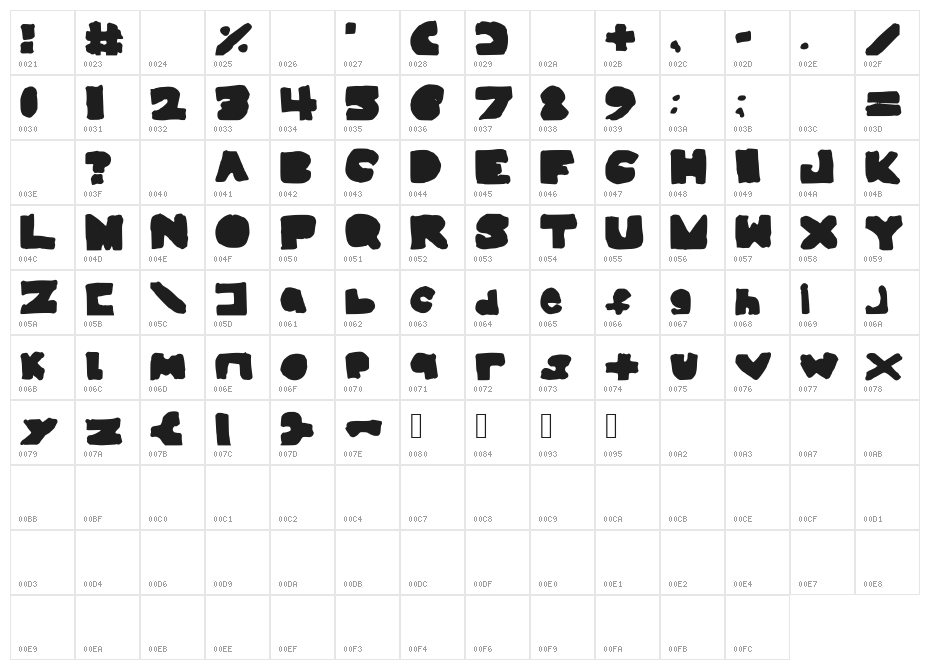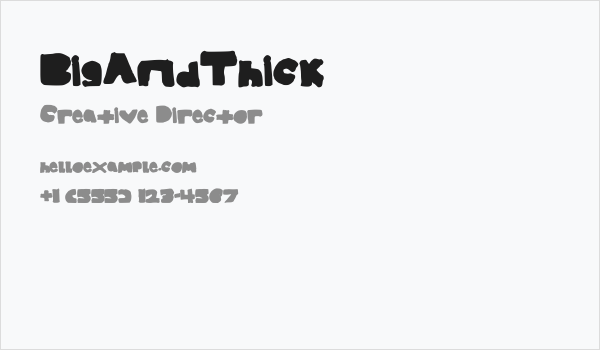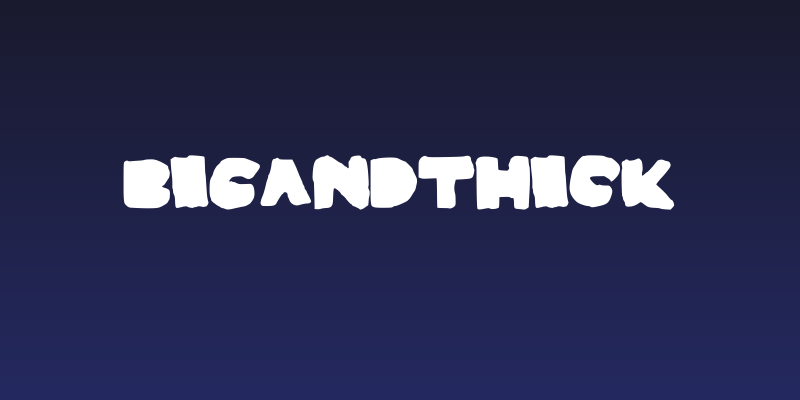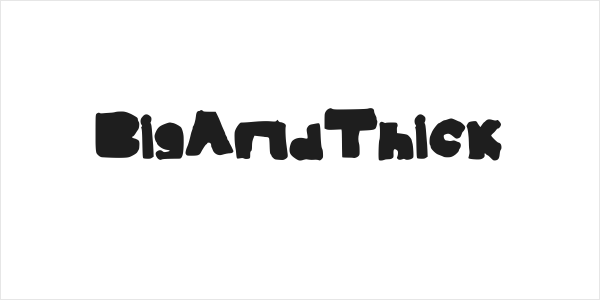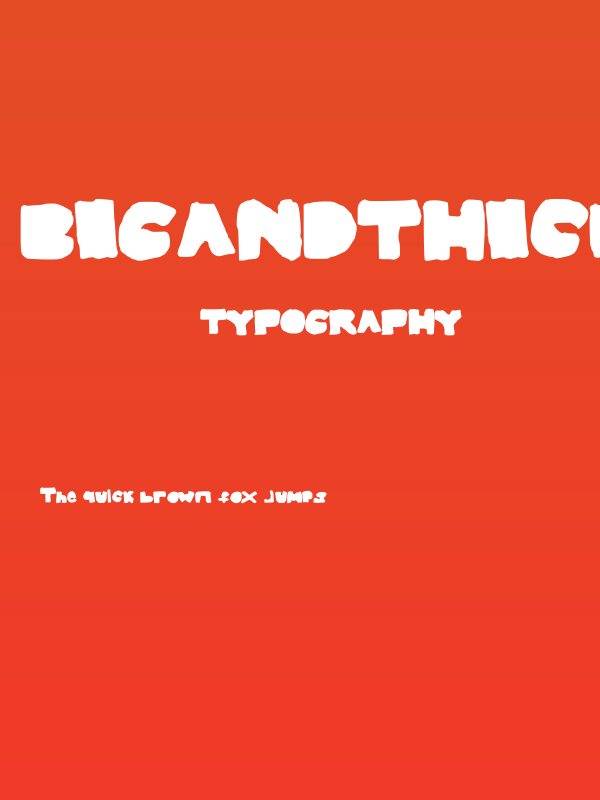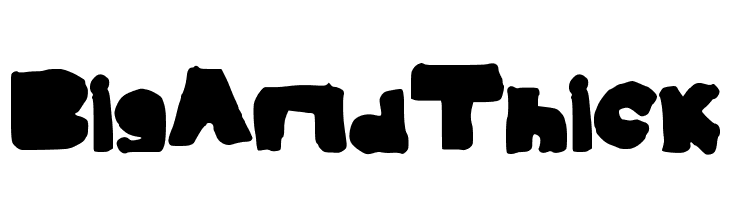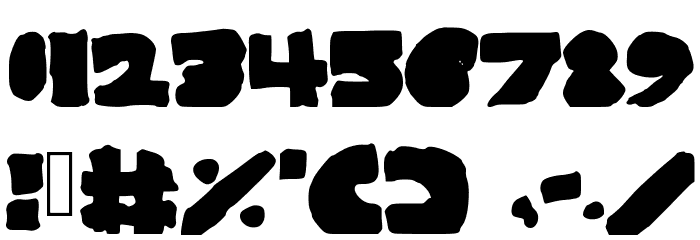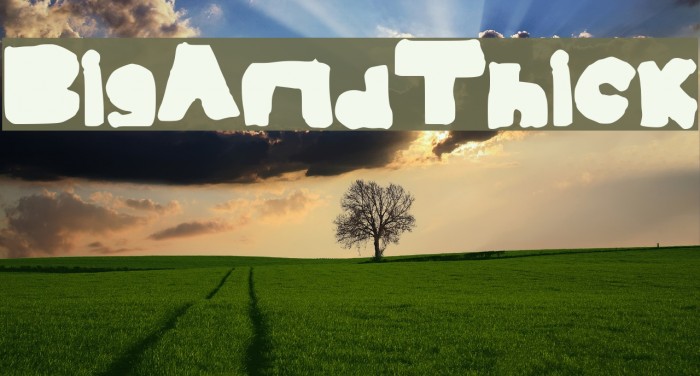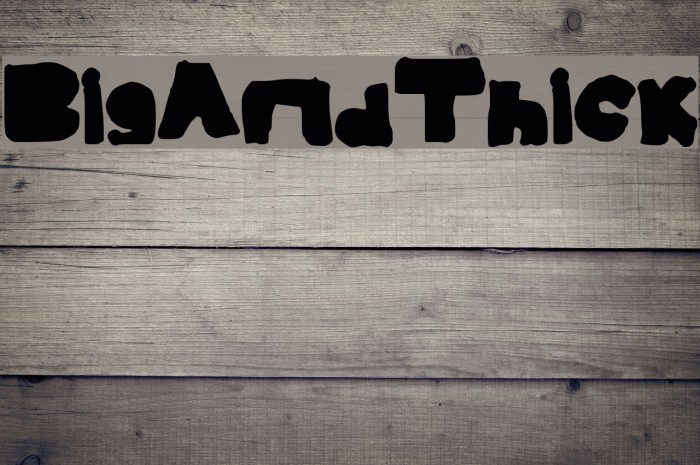
BigAndThick Font
BigAndThick Description
This font features bold, thick characters with a playful and chunky appearance. The letters are heavily weighted, creating a strong visual impact. The style is reminiscent of graffiti or street art, with a slightly irregular and organic form that adds a sense of movement and energy. The characters are closely spaced, enhancing the boldness and making it ideal for attention-grabbing designs. The font includes both uppercase and lowercase letters, numbers, and a variety of special characters, all maintaining the same robust style.
| Proposed Projects | Ideal for posters, headlines, logos, and any design requiring a strong, impactful visual presence. |